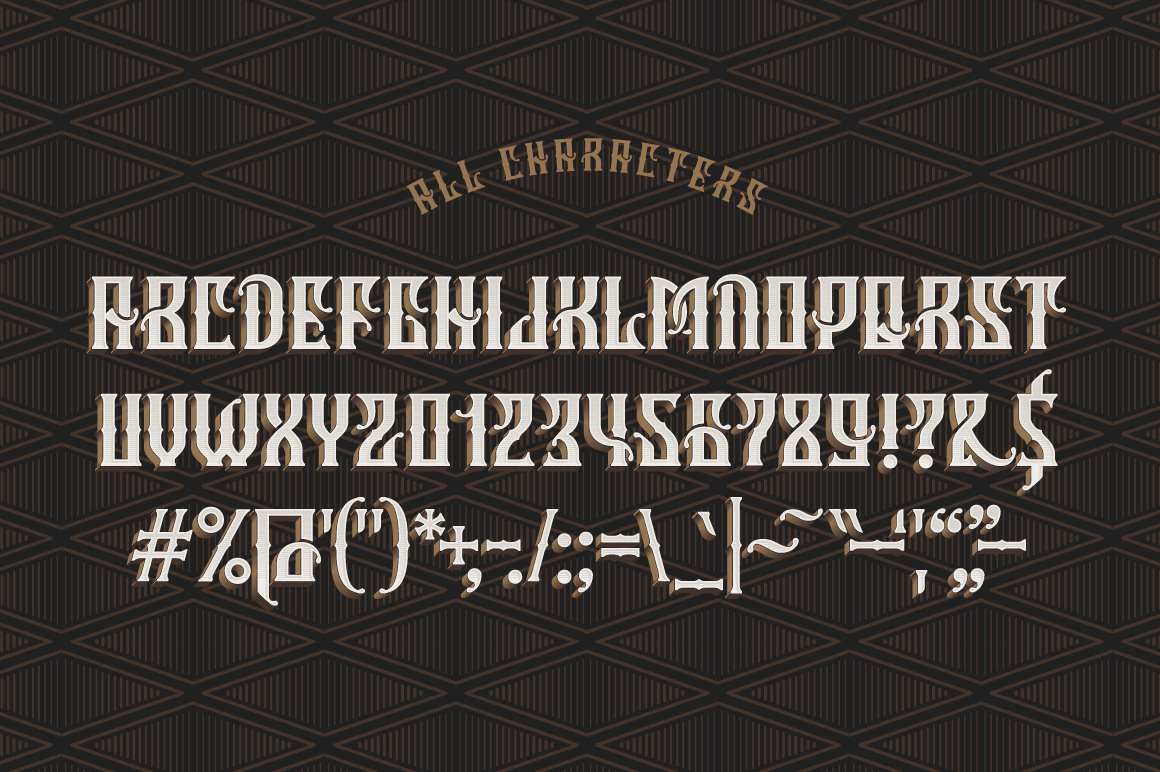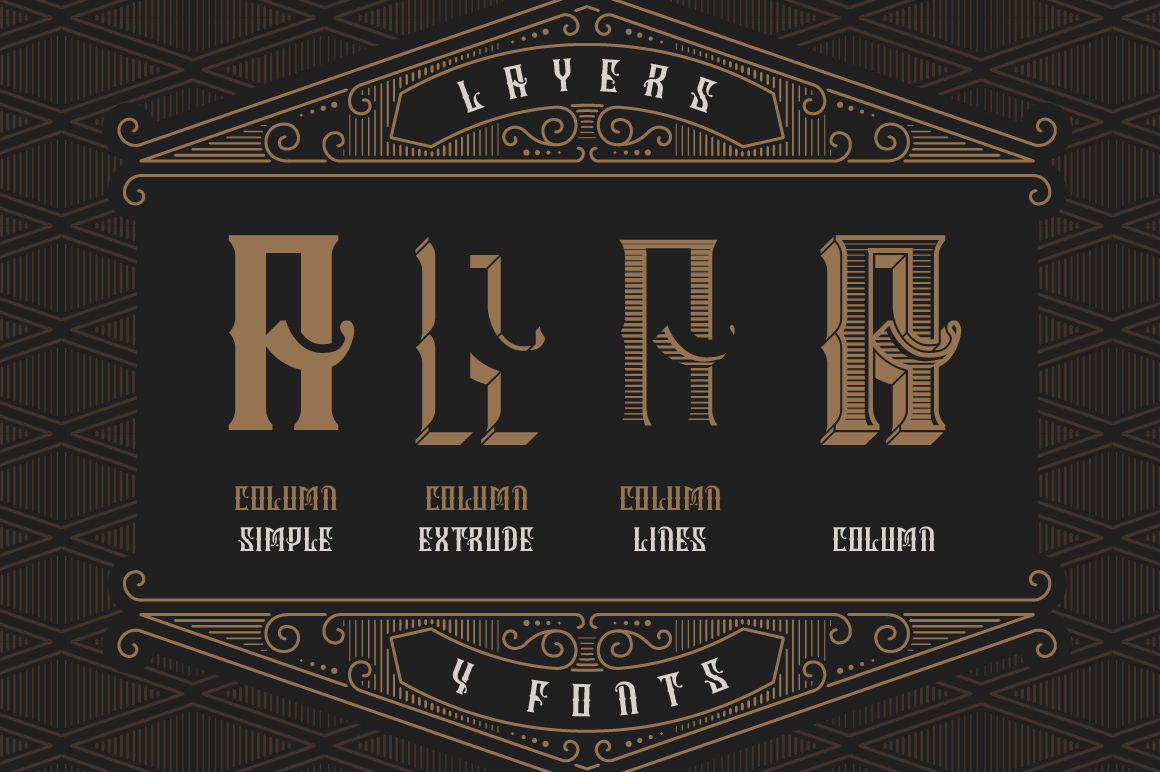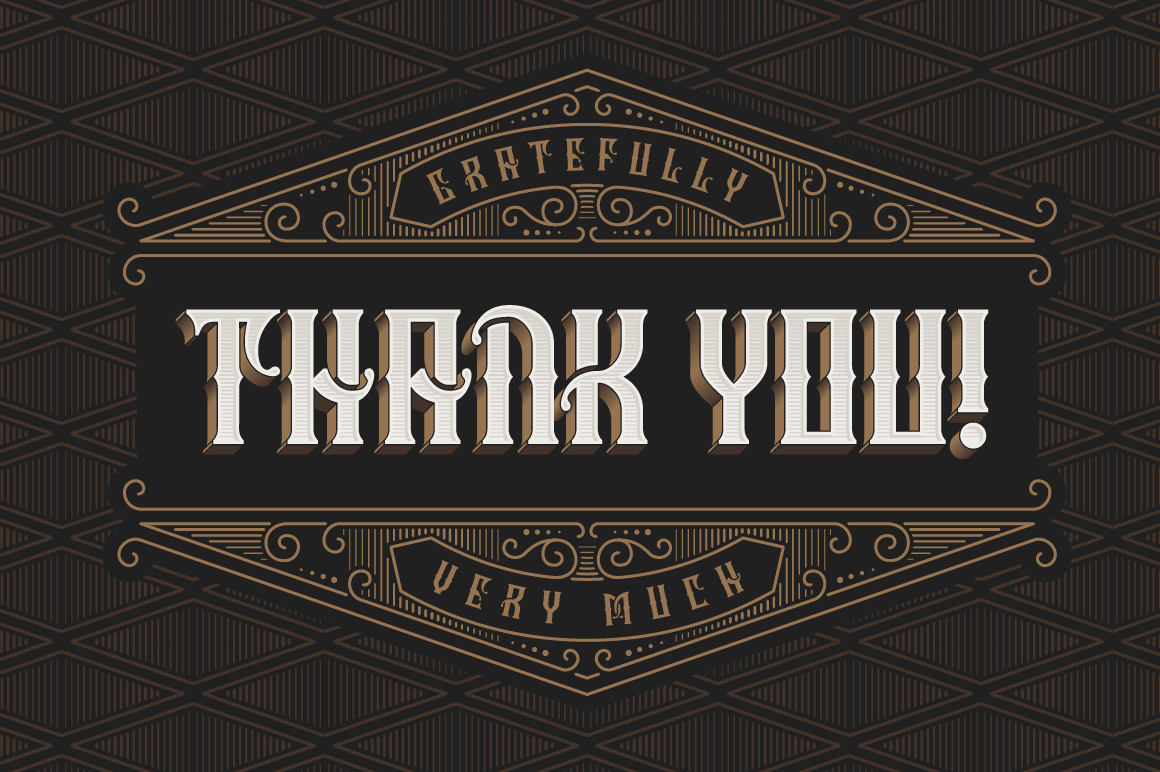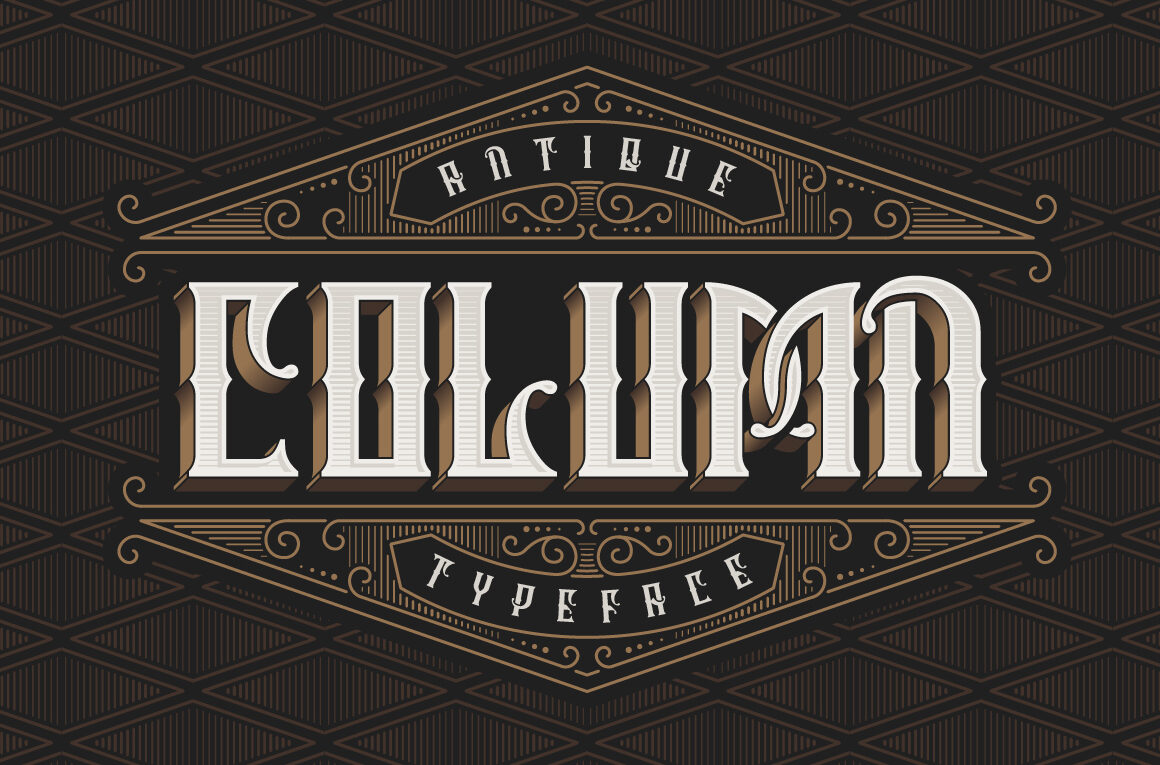
Introducing Column Font: A Decorated, Vintage-Looking Type
Are you a designer or crafter looking for a unique and eye-catching font to add to your project? Look no further than Column Font, a beautifully decorated, vintage-looking type that comes in 4 variations. In this article, we’ll dive into the details of Column Font, exploring its features, uses, and benefits for designers and crafters.
A Brief Overview of Column Font
Column Font is a distinctive, vintage-inspired typeface that is sure to add a touch of elegance and sophistication to any design project. With its intricate details and classic look, Column Font is perfect for designers and crafters who want to create unique and eye-catching designs. The font comes in 4 variations, offering flexibility and versatility for a range of design applications.
Key Features of Column Font
- Decorated and Vintage-Looking: Column Font boasts an ornate, vintage aesthetic that adds a touch of classic charm to any design.
- 4 Variations: The font comes in 4 different variations, allowing designers and crafters to experiment with different styles and effects.
- Highly Legible: Despite its decorative nature, Column Font remains highly legible, making it suitable for use in a range of design applications, from headings and titles to body text.
- Versatile: Column Font can be used in a variety of design contexts, including branding, packaging, signage, and more.
Uses for Column Font
Column Font is a versatile typeface that can be used in a range of design applications. Here are just a few ideas to get you started:
- Branding and Logo Design: Use Column Font to create a unique and memorable brand identity that stands out from the crowd.
- Packaging Design: Add a touch of vintage charm to your packaging designs with Column Font, perfect for food labels, wine bottles, and more.
- Signage and Display: Use Column Font to create eye-catching signage and display text that’s sure to grab attention.
- Stationery and Invitations: Add a touch of elegance to your stationery and invitations with Column Font, perfect for weddings, events, and more.
Column Font offers a range of benefits for designers and crafters, including:
- Unique and Eye-Catching Designs: With Column Font, you can create unique and eye-catching designs that stand out from the crowd.
- Time-Saving: The font’s versatility and legibility mean you can use it in a range of design applications, saving you time and effort.
- Increased Creativity: Column Font’s 4 variations offer a range of creative possibilities, allowing you to experiment with different styles and effects.
- Professional-Looking Results: With Column Font, you can achieve professional-looking results without sacrificing creativity or style.
| Font Name | Column Font |
| Author | Gleb Guralnyk |
In conclusion, Column Font is a beautifully decorated, vintage-looking typeface that offers a range of creative possibilities for designers and crafters. With its intricate details, classic look, and 4 variations, Column Font is perfect for adding a touch of elegance and sophistication to any design project. Whether you’re a seasoned designer or a crafty DIY enthusiast, Column Font is sure to inspire and delight.